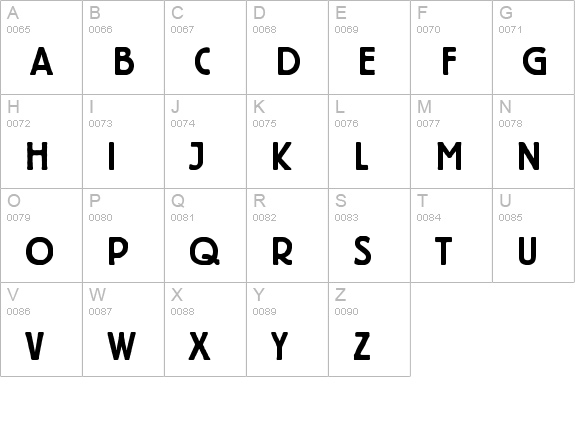
BerlinerGroteskBQ-Medium Font Details
BerlinerGroteskBQ-Medium is a balanced, medium-weight variant in the BerlinerGroteskBQ typeface family \xE2\x80\x94 well suited to sub-headlines, navigation, and balanced editorial work.